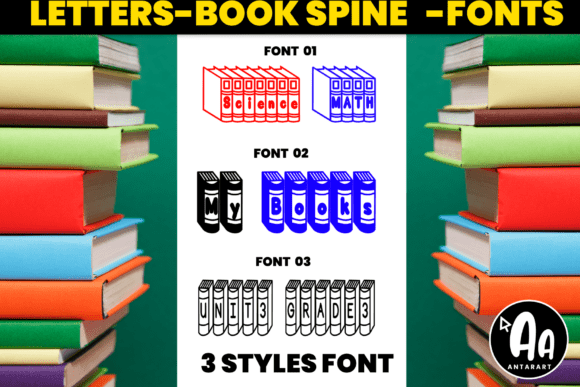
Breathe New Life into Your Classroom or Library with Abcd Ref Book Spine1 Font
Have you ever been in the midst of creating a stunning classroom display or library organization project, only to find that the perfect font was missing? I recall a particularly frustrating experience while working on a school project, searching high and low for a font that could bring a unique touch to my designs. That’s when I stumbled upon the Abcd Ref Book Spine1 Font, and it completely transformed my creative process.
The Abcd Ref Book Spine1 Font: A Game-Changer for Educators and Designers
The Abcd Ref Book Spine1 Font is a versatile and visually appealing font set designed to resemble book spines on a shelf. This innovative font set includes three distinct styles, offering a range of creative possibilities for educators, designers, and crafters. With its unique design, this font set is perfect for creating:
• Printable bulletin board titles
• Library section labels
• Classroom door displays
• Binder covers
What I Love About Abcd Ref Book Spine1 Font
Here’s what makes this font set stand out:
• ✨ Unique and eye-catching design that resembles book spines
• ✅ Three different styles to choose from
• ✅ Includes uppercase letters, numbers, and symbols
• ✅ Perfect for creating custom headings, subject labels, and motivational quotes
• ✅ Works for any grade level, subject, or theme
While the Abcd Ref Book Spine1 Font is an excellent choice, there are a few minor considerations:
• ⚠️ Limited to a specific design style, which may not fit every project
• 🤔 May require some creative experimentation to get the desired look
The Abcd Ref Book Spine1 Font set offers a range of OpenType features and glyphs, including:
• Stylistic alternates for varying design styles
• Glyphs for creating custom designs and icons
The Designer Inspiration Behind Abcd Ref Book Spine1 Font
The Abcd Ref Book Spine1 Font was designed with educators and designers in mind. The creator wanted to develop a font that would bring a unique and organized look to classrooms and libraries, while also providing a versatile tool for creative projects.